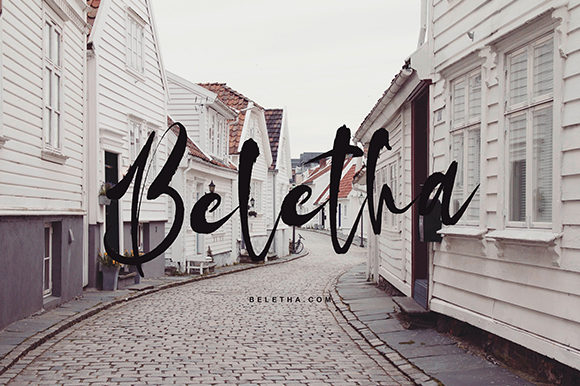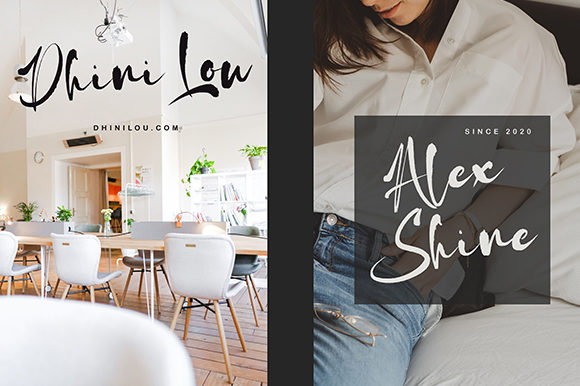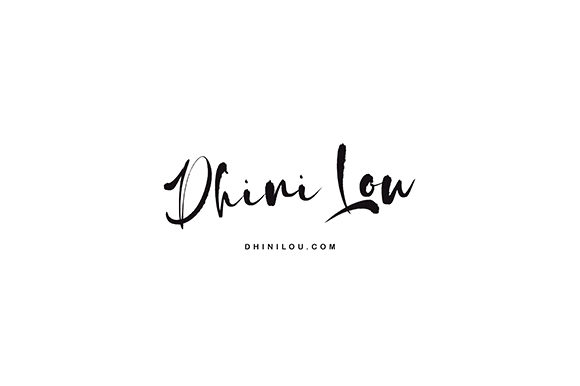
Introduction to Aleita Font
Aleita is a fresh handwritten font.
Use it for any design project that requires a personalized appearance .
Key Features of Aleita Font
Why Choose Aleita Font?
Aleita Font offers exceptional quality and versatility, making it a valuable addition to your design toolkit. Whether you’re creating for personal projects or commercial use, Aleita Font delivers professional results.